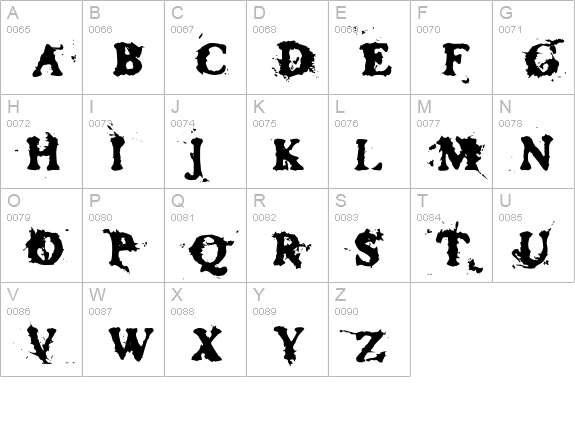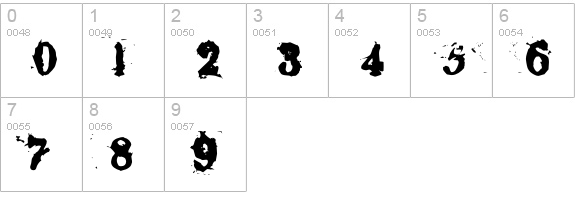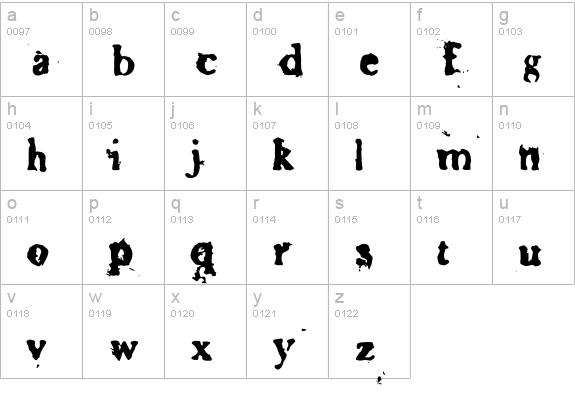
Demolition Font Details
Introducing the bold and edgy Demolition font, a versatile typeface that exudes strength and character. With its rugged design and sharp angles, this font is perfect for creating eye-catching headlines, posters, and logos that demand attention. The Demolition font is ideal for projects that require a modern and industrial look, adding a touch of raw energy to any design. Best of all, Demolition font is completely free to download at FontsMarket.com. Whether you're a graphic designer, illustrator, or just looking to spice up your projects, this font is a must-have addition to your collection. Don't miss out on the opportunity to add this powerful and dynamic font to your creative arsenal. Download Demolition font today and unleash its bold impact on your designs.